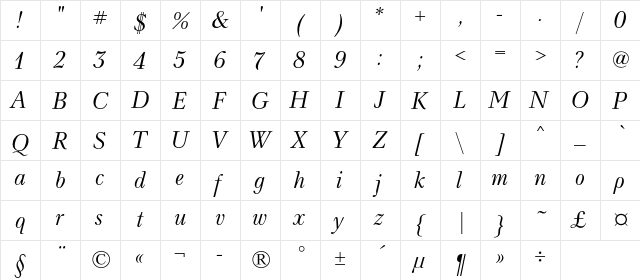
NevaC Italic
Design Context for NevaC Typeface
NevaC offers clean, dependable letterforms without strong stylistic allegiance, making it a practical choice for designers who need flexibility. Its italic angle brings a sense of urgency and motion to the letterforms.
Pro Tip: Use NevaC for emphasis, pull quotes, and subheadings where its slanted energy can add rhythm to the layout.